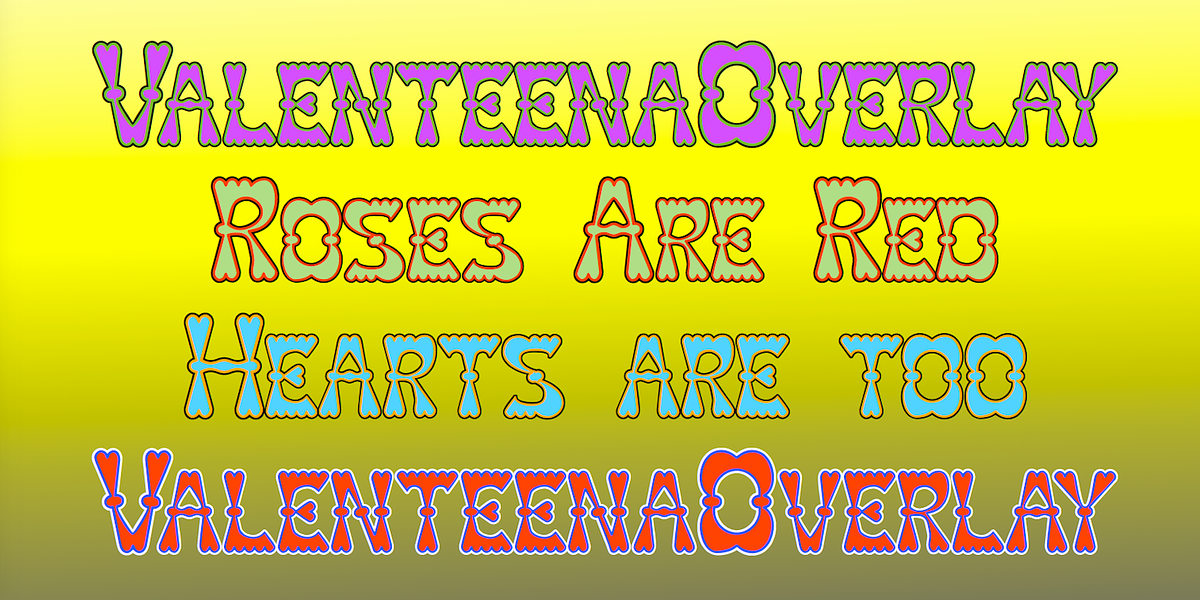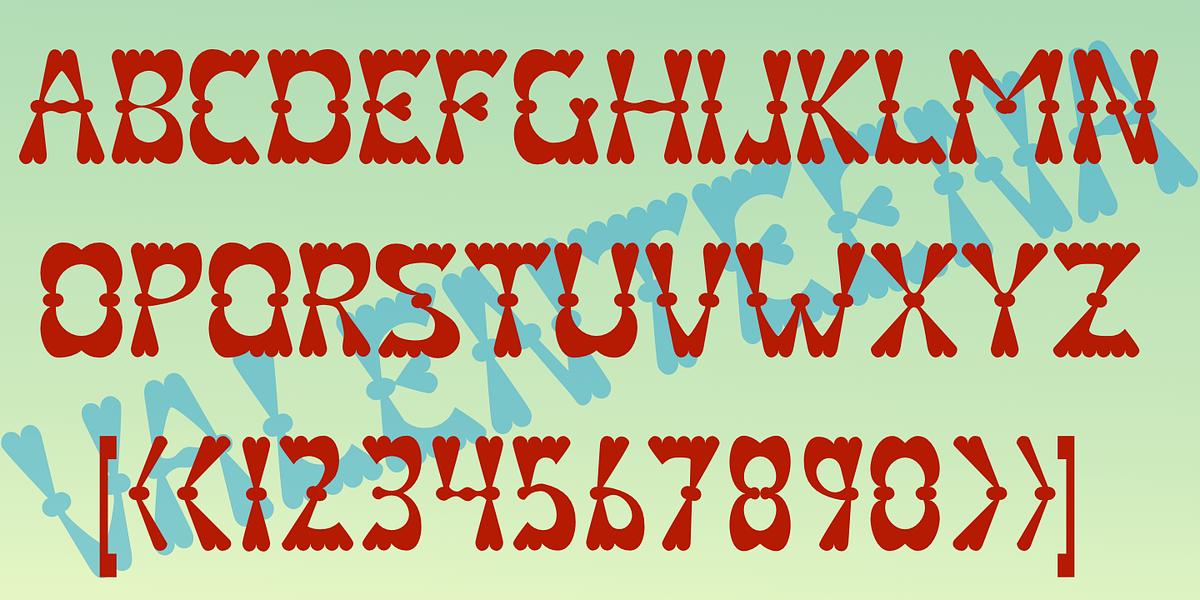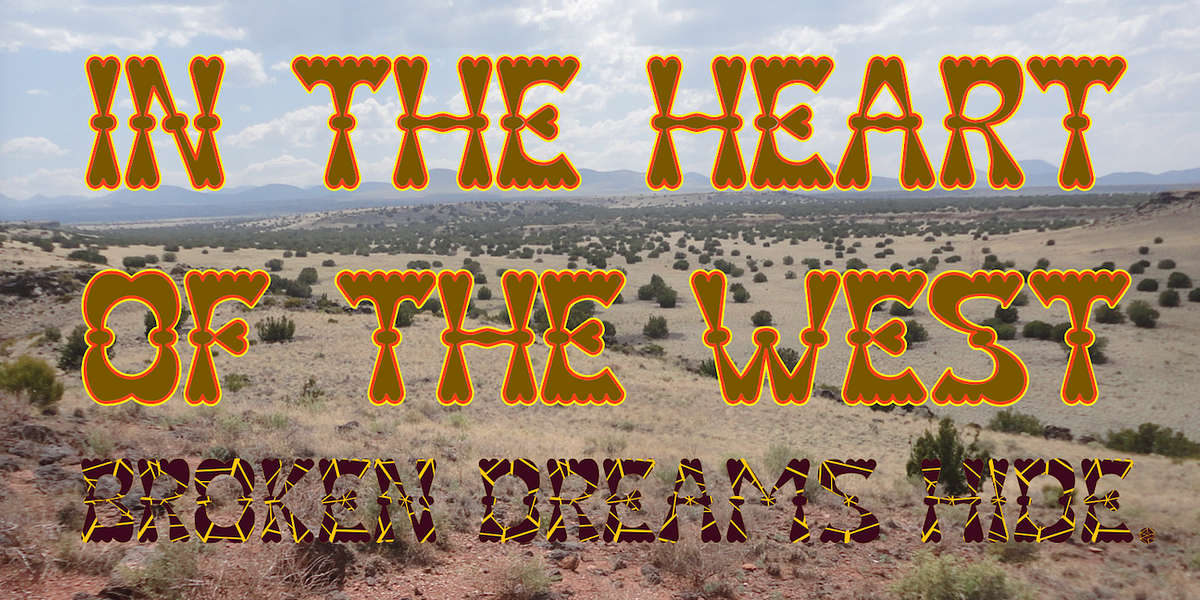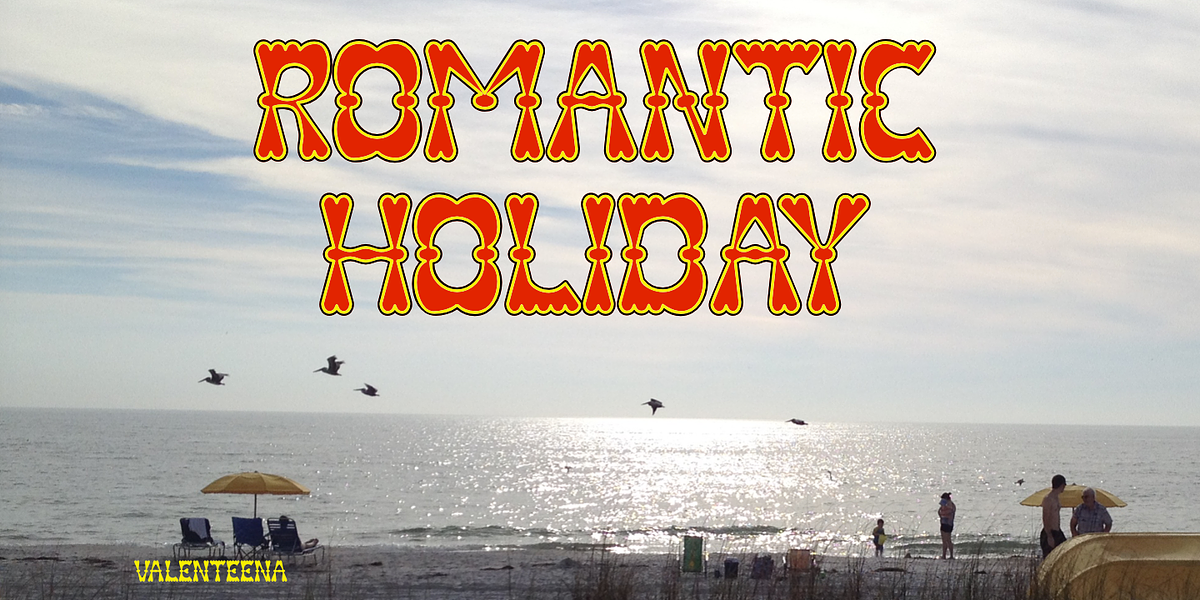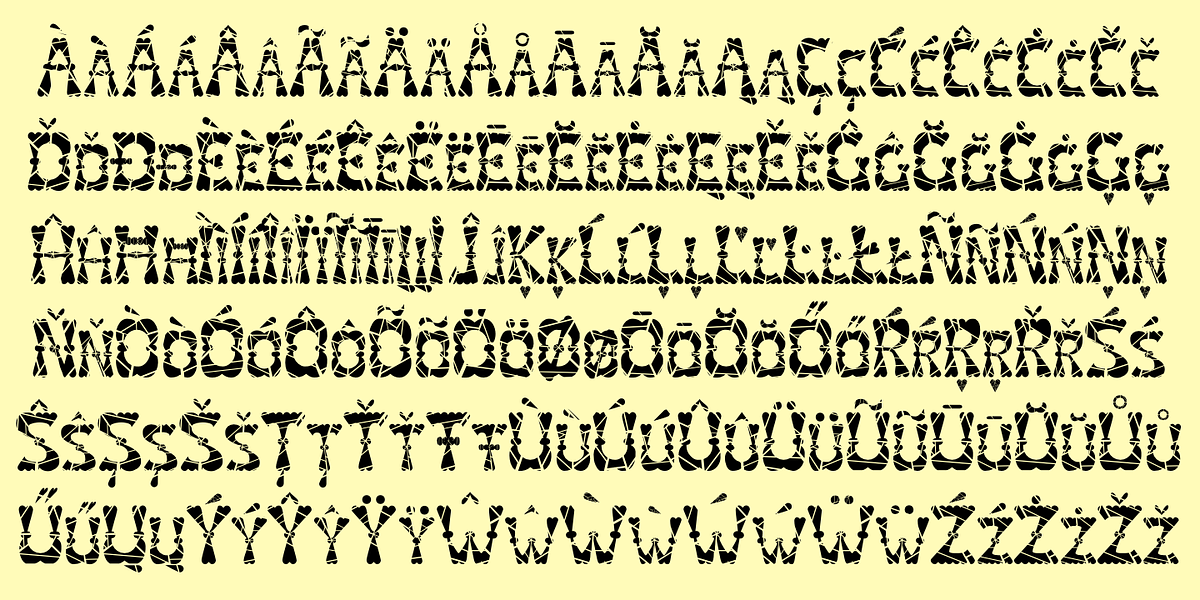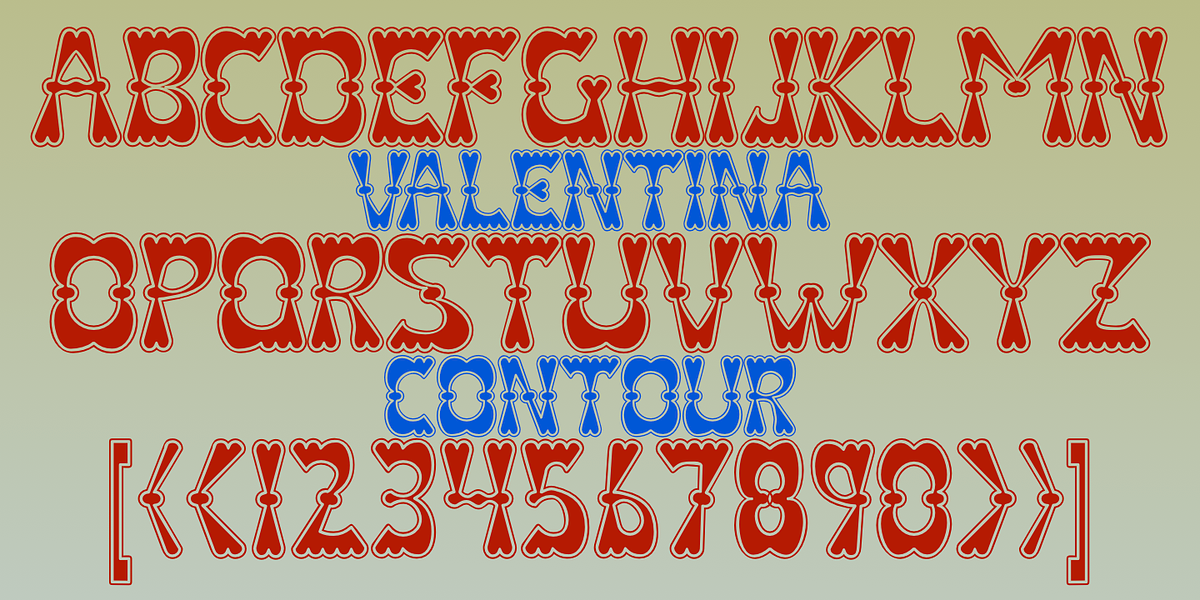
Valenteena
Valenteena is a unique geometric display font inspired by the 19th century. Its design utilizes distorted heart shapes to form each letter. The lower-case letters are scaled-down versions of their upper-case counterparts. Notably, Valenteena offers a layered variant, allowing users with compatible software to create three-colored letters by combining inner, medium, and outer layers.